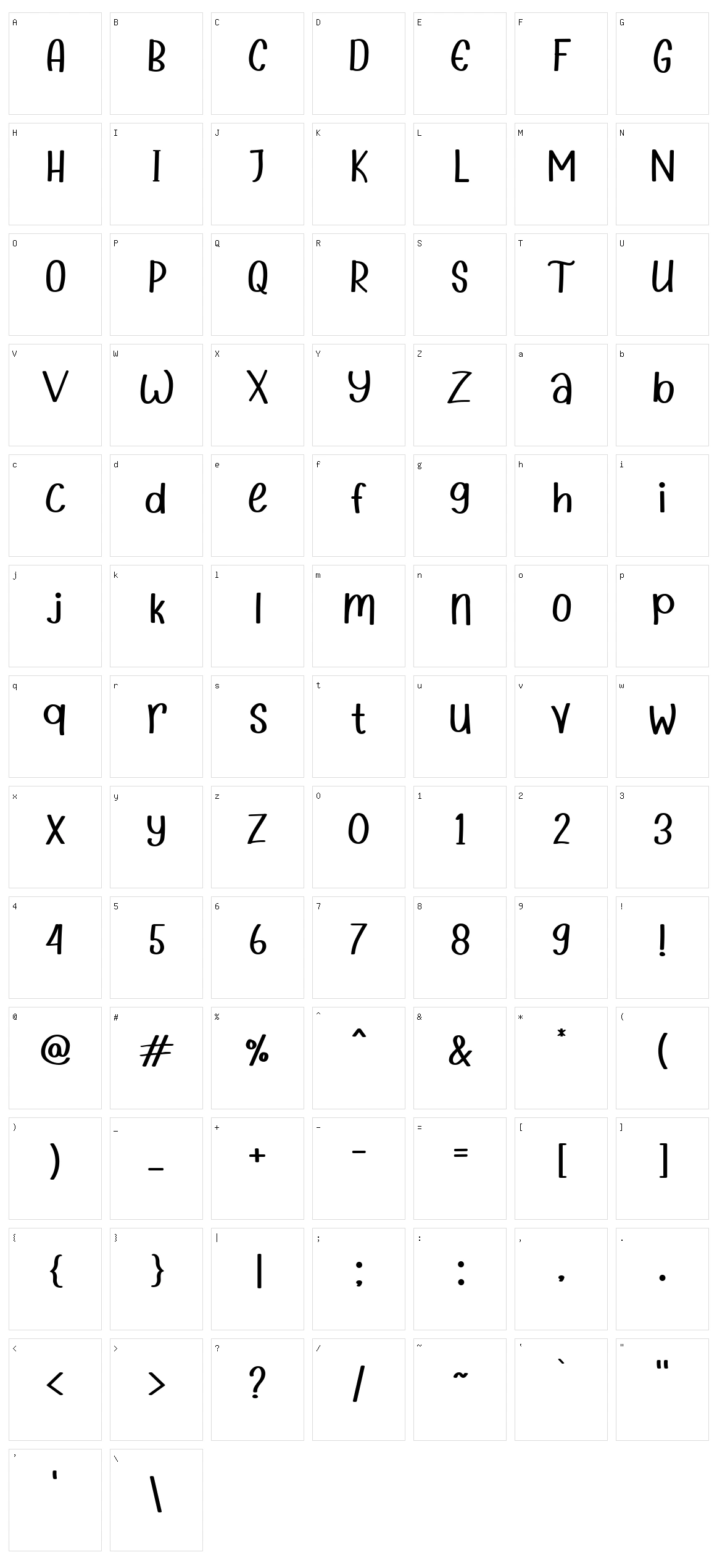
The free font Kidstar is carefully designed by Letter Jos, showcasing a thoughtful balance of creativity and usability and falls under the Cartoon font style. When you download the ZIP file, it contains only 34.66 KB of font files, making it lightweight and quick to download. Please review the license details below to understand permitted usage and distribution rights. If license information is not available, we recommend using this font for personal projects only or contacting the author directly for commercial usage permissions.
Kidstar Font